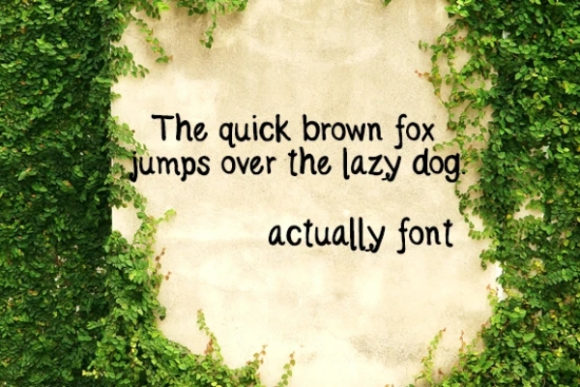
Discover the Charm of Actually Font: Elevate Your Design Projects with Timeless Elegance
In the world of typography, few fonts manage to strike a balance between classic sophistication and modern flair. Actually Font is one such gem that effortlessly merges the elegance of traditional typography with a unique, contemporary twist. This beautiful handwritten font is designed to bring a touch of personality and style to any design project, making it a versatile choice for creatives and designers alike.
The Inspiration Behind Actually Font
Actually Font draws its inspiration from the rich heritage of classic typography, where the art of lettering was elevated to new heights. The creators of Actually Font sought to capture the essence of this timeless elegance and infuse it with a modern sensibility, resulting in a font that is both nostalgic and fresh. This blend of old and new makes Actually Font an excellent choice for designers looking to add a vintage touch to their work without compromising on contemporary appeal.
Key Features of Actually Font
- Handwritten Elegance: Actually Font boasts a lovely handwritten style that adds a personal touch to any design. Its fluid strokes and natural flow make it perfect for creating visually appealing text that stands out.
- Versatility: Whether you’re working on headlines, body text, or anything in between, Actually Font adapts seamlessly. Its clear readability and aesthetic appeal make it suitable for a wide range of applications.
- Multi-Platform Compatibility: Actually Font is designed to perform exceptionally well across various platforms and mediums. From web design and print materials to moving images and digital crafts, this font ensures your work looks spectacular.
Best Use Cases for Actually Font
Actually Font’s versatility makes it an excellent choice for numerous design projects. Here are some of the best use cases:
- Headlines and Titles: The font’s elegant and bold appearance makes it perfect for headlines of all sizes. It can instantly elevate the visual impact of your titles, making them more engaging and attention-grabbing.
- Branding and Logos: For brands looking to establish a unique identity, Actually Font can add a touch of sophistication and personality. Its distinctive style can help create memorable logos and brand texts.
- Web Design: Actually Font is highly legible on digital screens, making it an excellent choice for website content, blogs, and online articles. It can add a warm and inviting feel to your web design.
- Print Materials: From brochures and posters to business cards and invitations, Actually Font can bring a level of elegance and refinement to your print materials.
- Digital Crafts and Moving Images: For designers working on animated content, presentations, or digital crafts, Actually Font offers a stylish and readable solution that enhances visual storytelling.
Tips for Using Actually Font Effectively
To make the most of Actually Font, consider the following tips:
- Mix and Match: Combine Actually Font with other fonts to create visual contrast and hierarchy. Pairing it with a sans-serif font can highlight its unique features.
- Adjust Size and Weight: Experiment with different sizes and weights to add depth and emphasis to your text. This can be particularly effective in headlines and titles.
- Color Selection: Choose colors that complement the elegant feel of Actually Font. Earth tones, pastels, and rich jewel tones can enhance its classic appeal.
| Author | carina2 |
Actually Font is a remarkable addition to any designer’s toolkit. Its unique blend of classic typography and modern style makes it an incredibly versatile font suitable for a wide range of projects. Whether you’re crafting elegant headlines, detailed print materials, or engaging digital content, Actually Font is sure to bring a touch of timeless elegance and charm to your work. Explore the possibilities with Actually Font and discover how it can elevate your design projects to new heights.